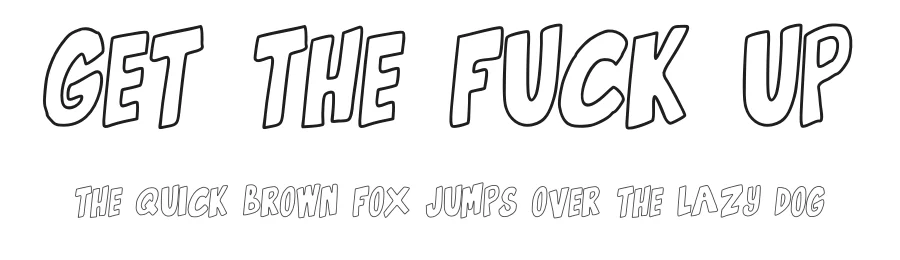
About Beautiful Horror Font
Beautiful Horror is a decorative font designed by 'Sanz Font. It includes 66 glyphs, a regular weight, TTF (TrueType) format, and 89 languages. Beautiful Horror is free to download; check the license details on this page before commercial use. Decorative fonts like Beautiful Horror work best for logos, posters, packaging, and standout headlines.
Beautiful Horror Font is a decorative font that shines as a display or heading face. Pair it with a clean sans-serif or serif font for body text β the contrast creates a clear hierarchy while the two styles stay balanced and easy to read.
Beautiful Horror Font
by 'Sanz Font
Beautiful Horror Font is a decorative typeface by 'Sanz Font, ideal for logos, invitations, branding, and creative projects.